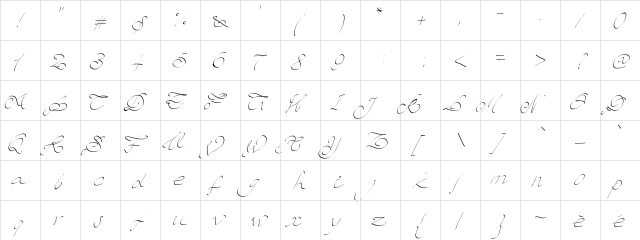
PWScript Medium
Design Context for PWScript Typeface
PWScript flows with the natural rhythm of handwritten lettering, making it ideal for designs that call for warmth and personal expression.
Font Pairing: Combine PWScript with a simple geometric sans for maximum contrast — the tension between flowing curves and clean structure is a classic typographic pairing.
Pro Tip: Pair PWScript with a clean sans-serif for supporting text. The contrast between fluid script and geometric structure creates an elegant typographic hierarchy.